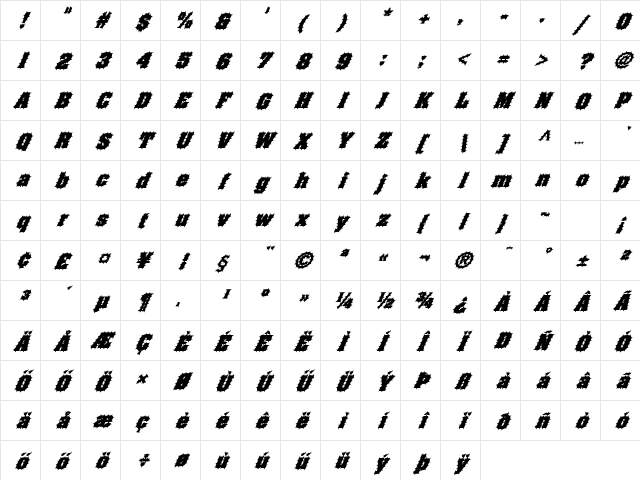
SPIKED52-HU Italic A Free Font
SPIKED52-HU Italic A
Style: Italic A
SPIKED52-HU Family
SPIKED52-HU Italic A
Design Context for SPIKED52-HU
SPIKED52-HU is a composed and adaptable typeface that performs quietly and consistently across a wide range of design contexts. The slanted form adds forward momentum and visual energy.
Pro Tip: Use SPIKED52-HU for emphasis, pull quotes, and subheadings where its slanted energy can add rhythm to the layout.